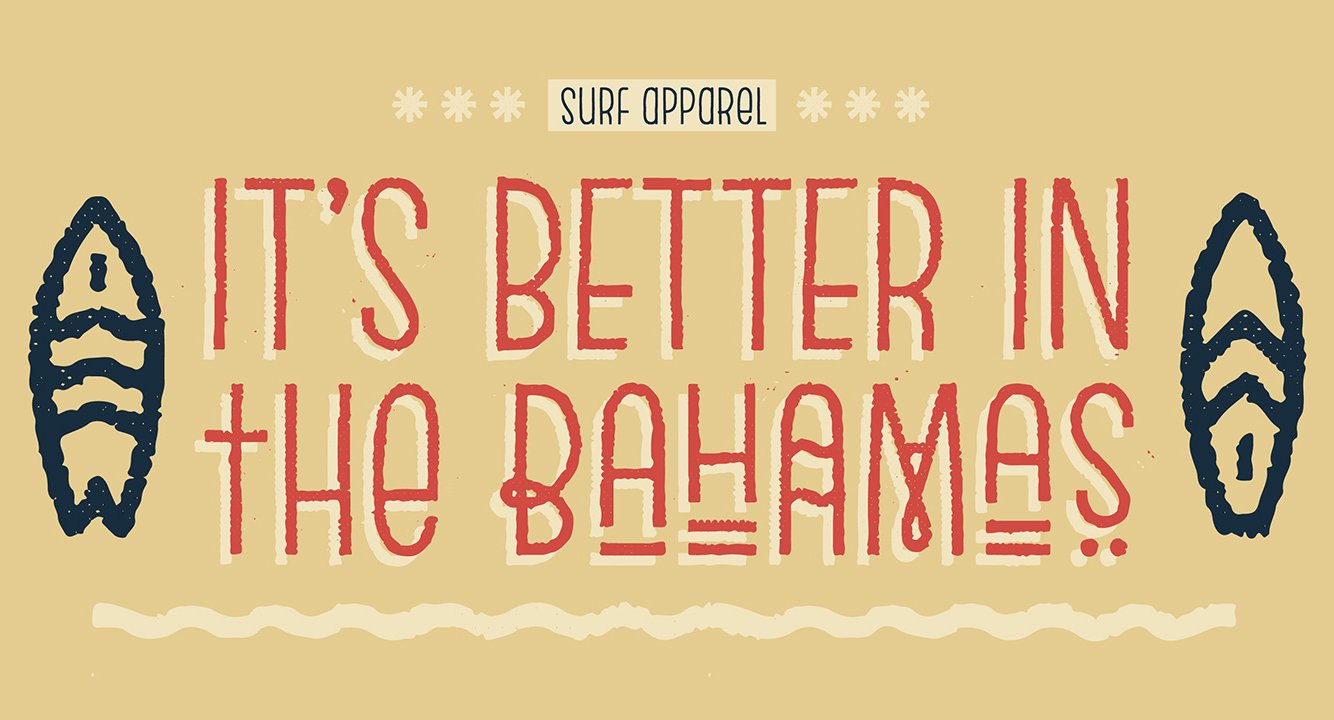
Escalope is a hand-drawn font with a crazy & unique personality: the low midline, the false-AllCaps style, the matching icons, all the fun and playfull...